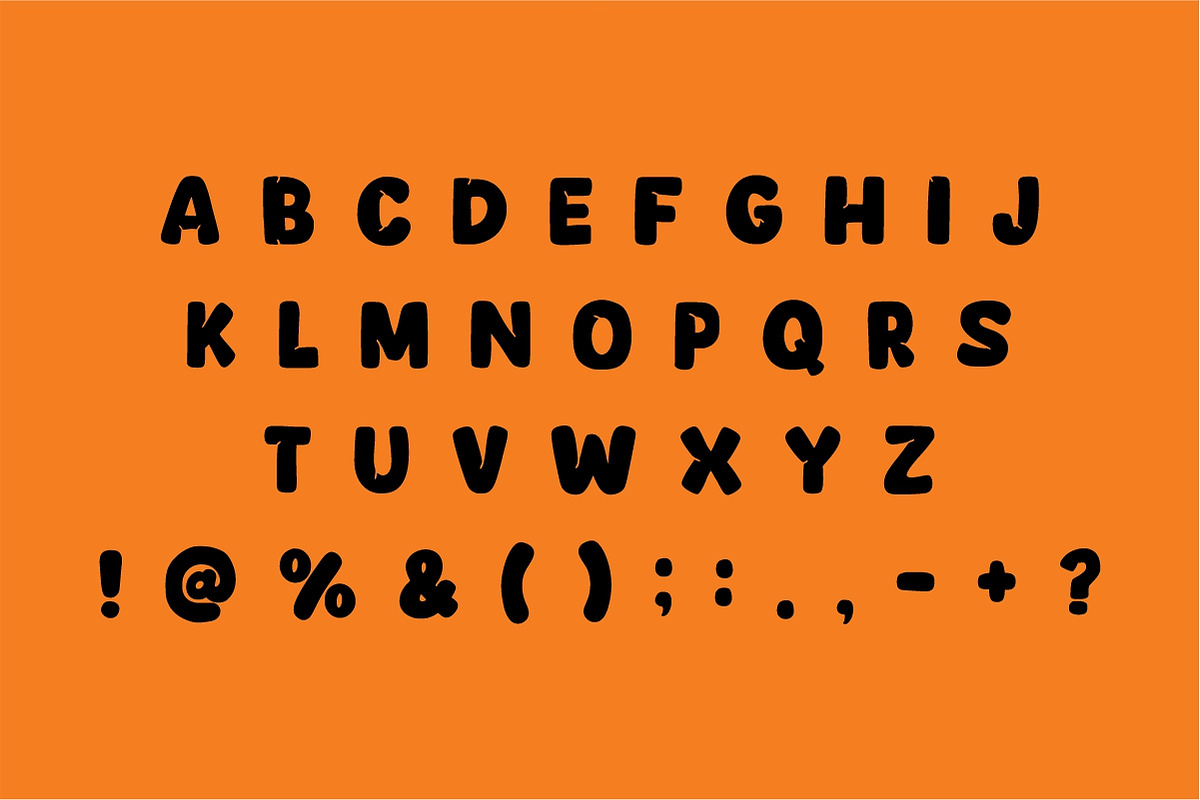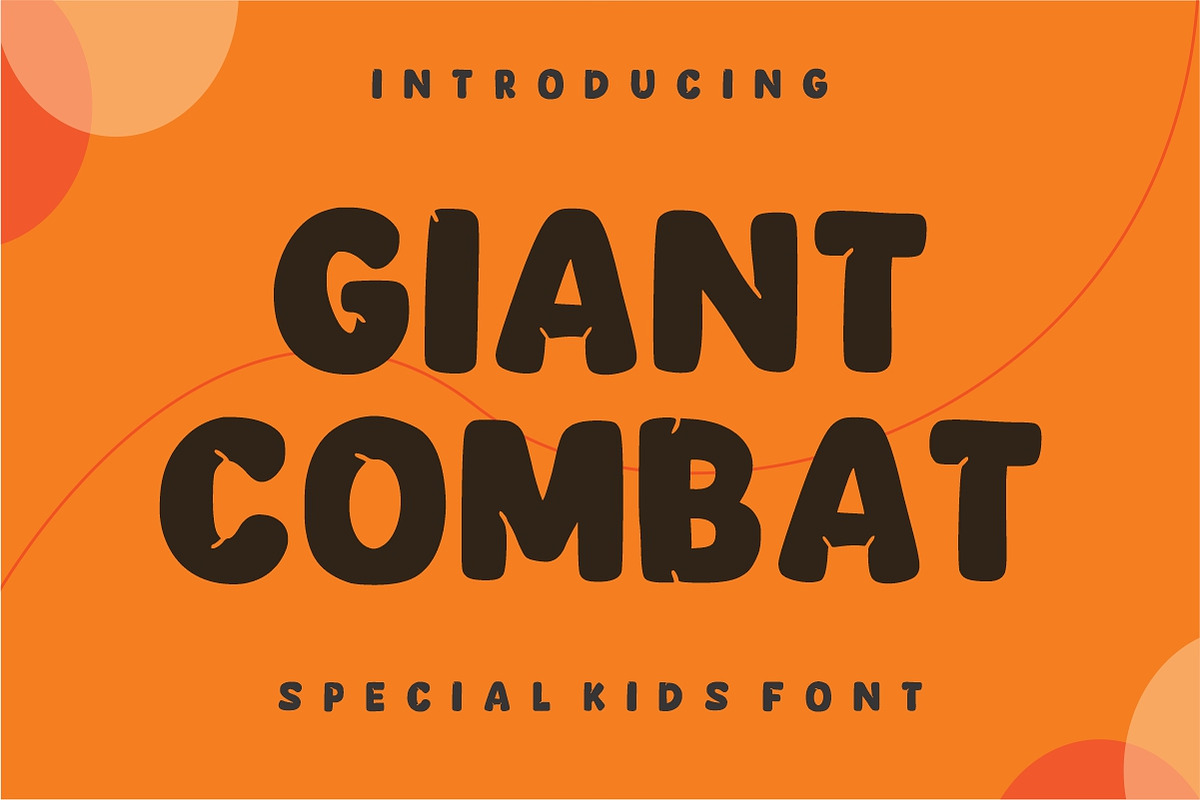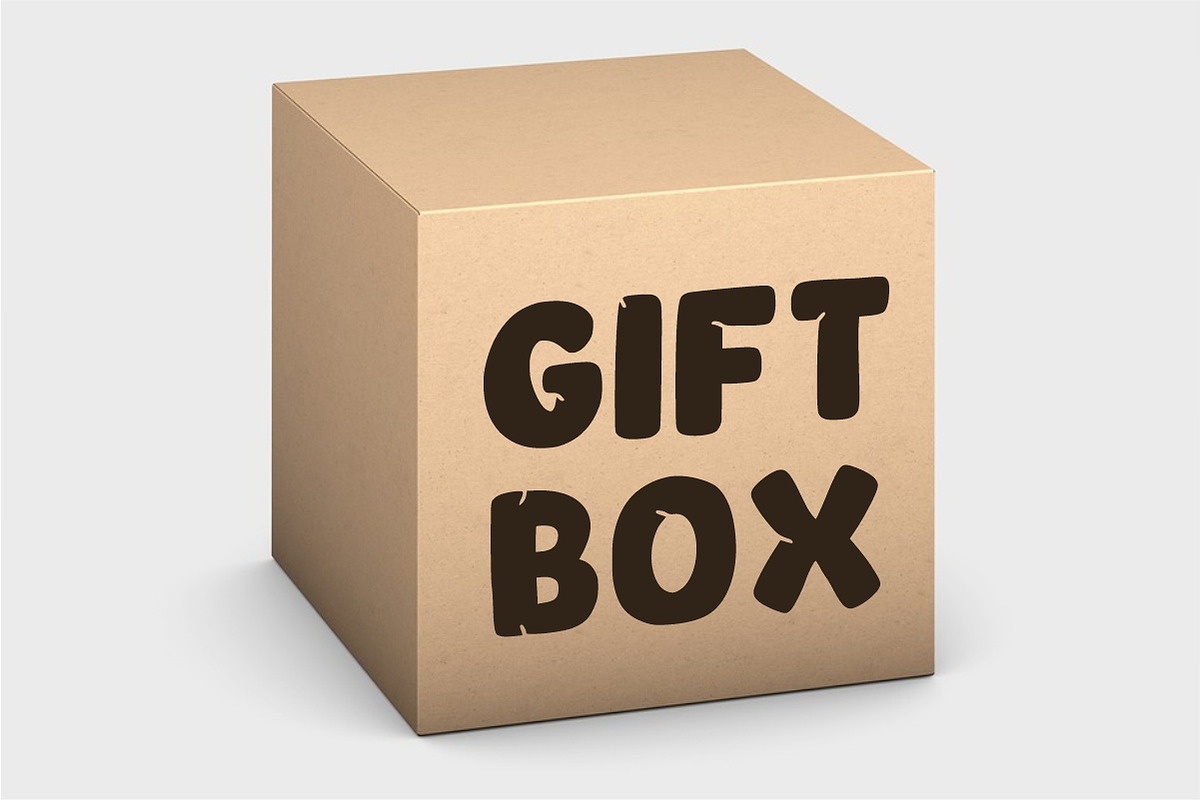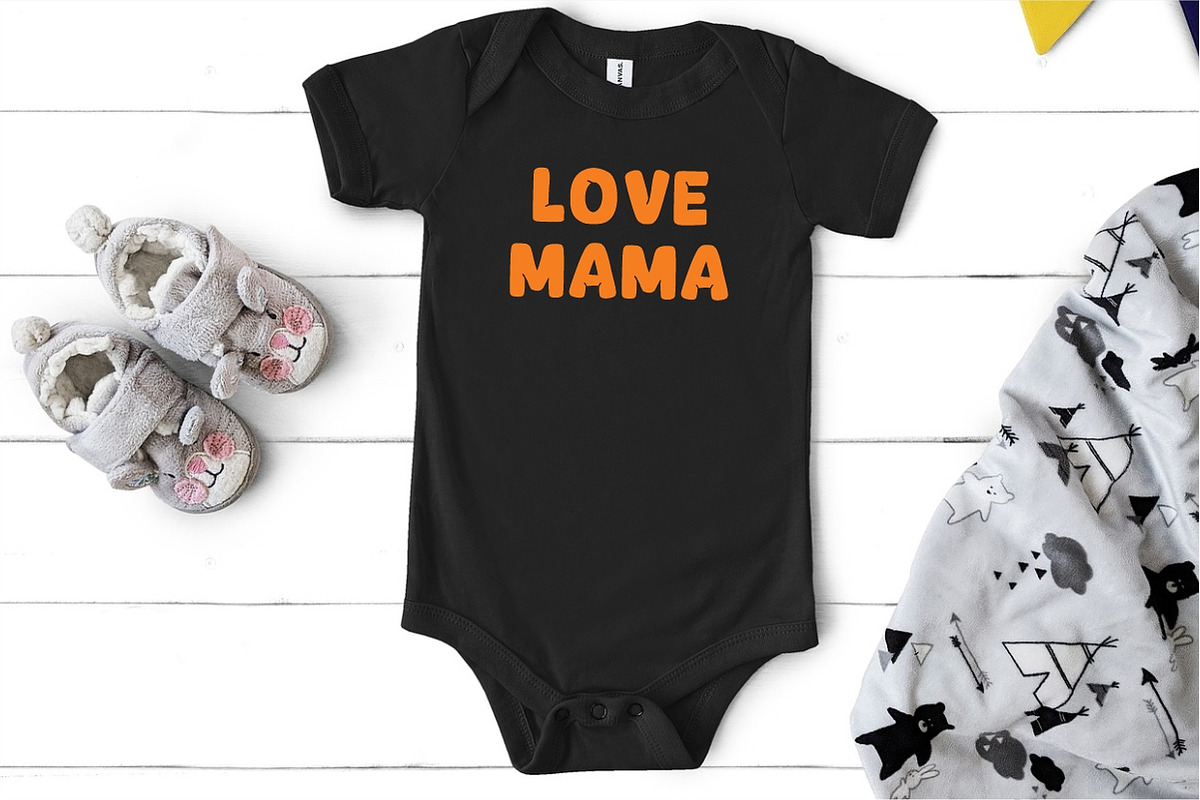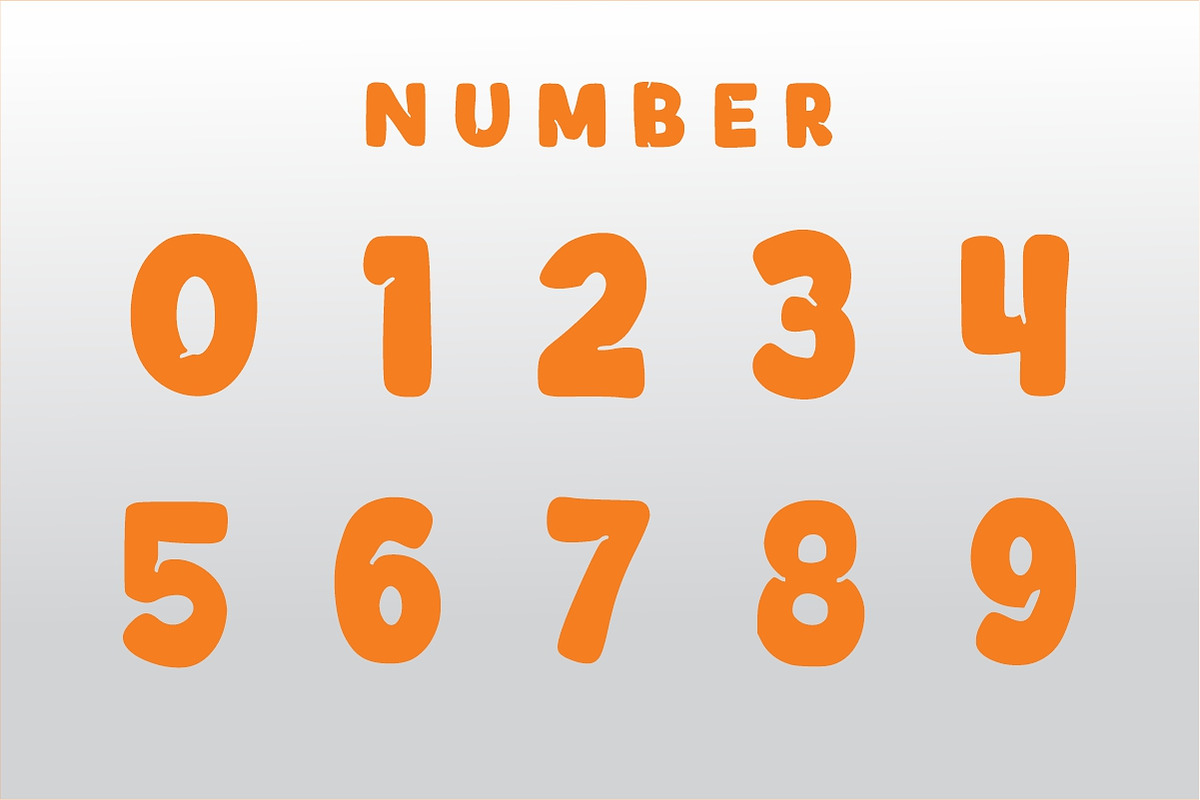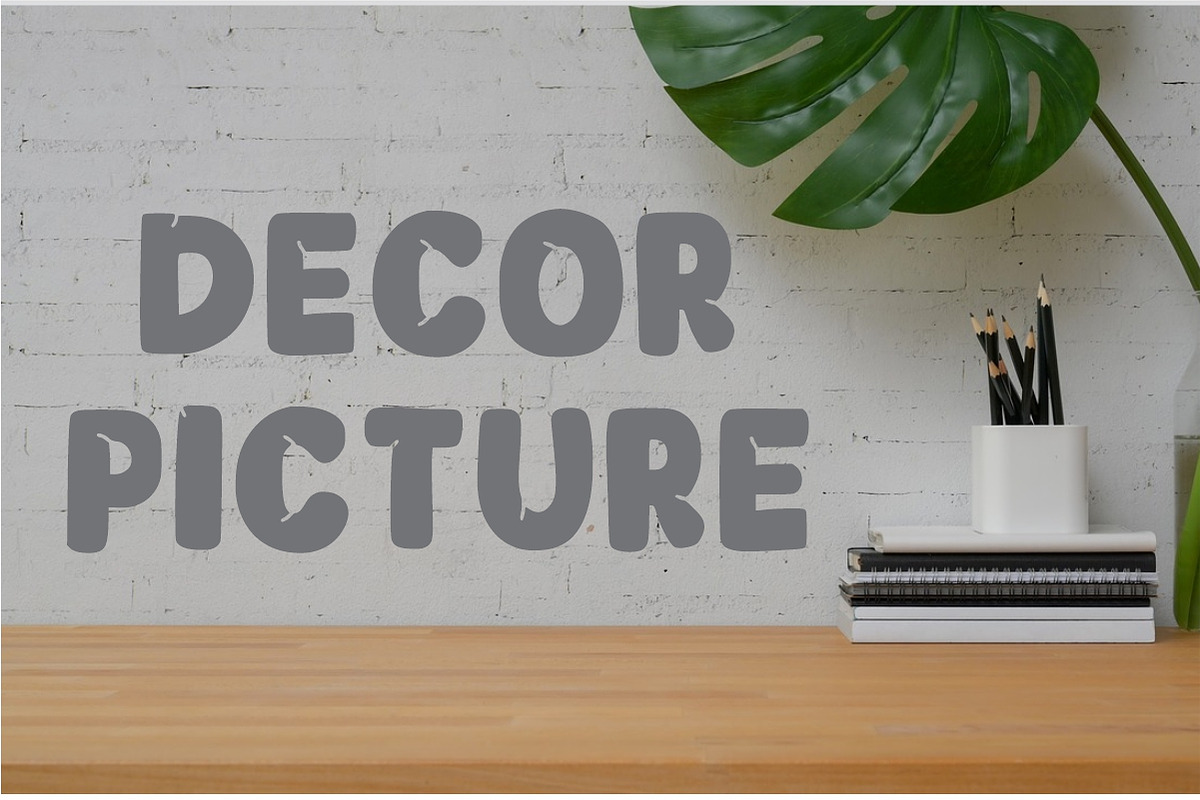
Giant Combat
Giant Combat is a Cool and bold font kids. It features a dynamic effect and a unique charm. It is perfect for headlines, whether for sporting events, automotive posters, logos or monogram designs. This font has the potential to become your favorite go-to font for each of your automotive projects.